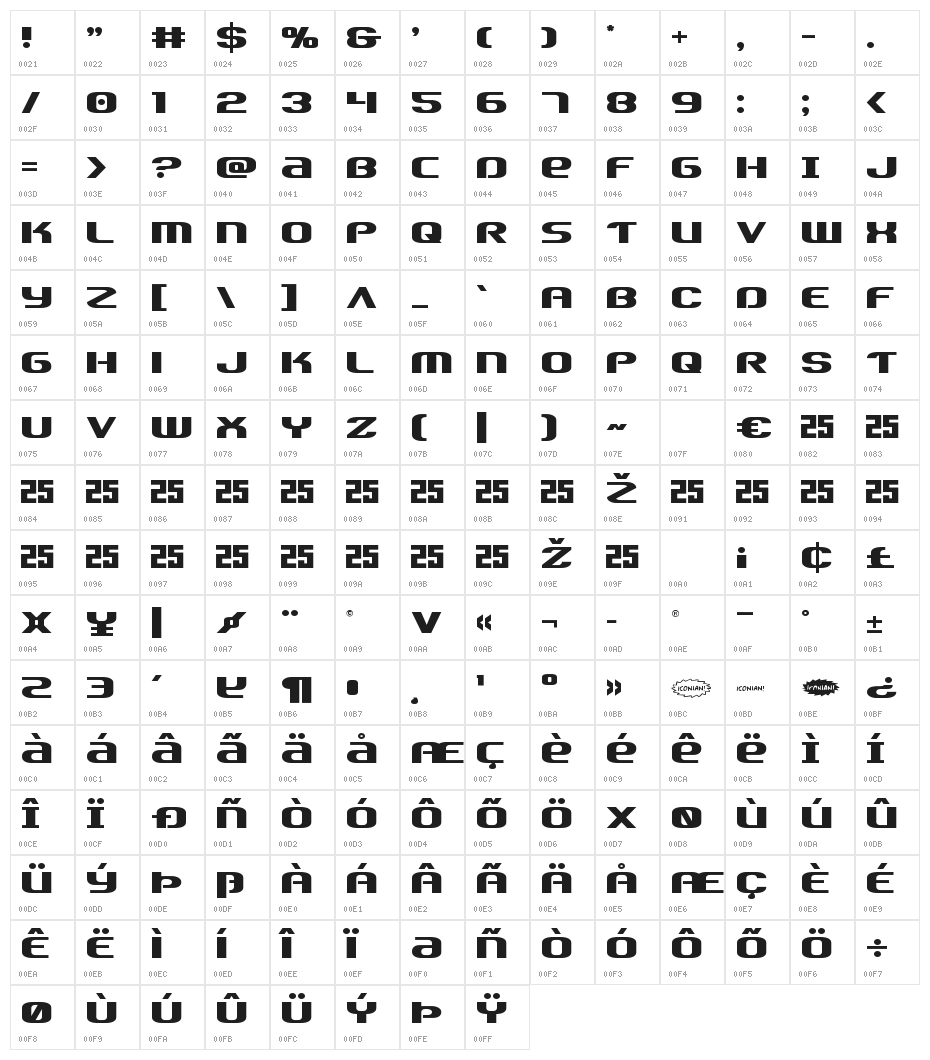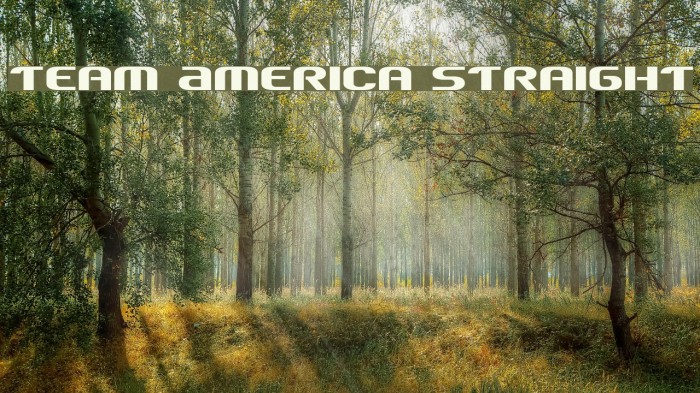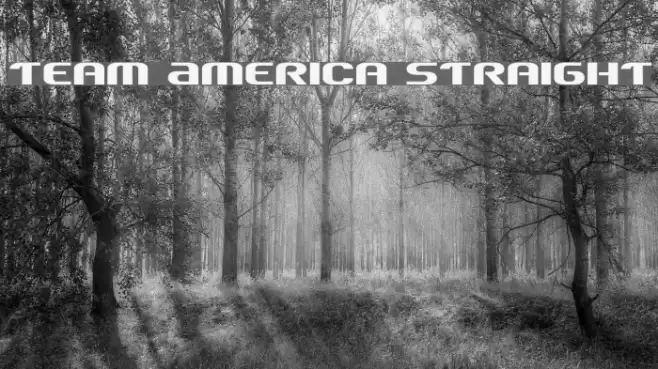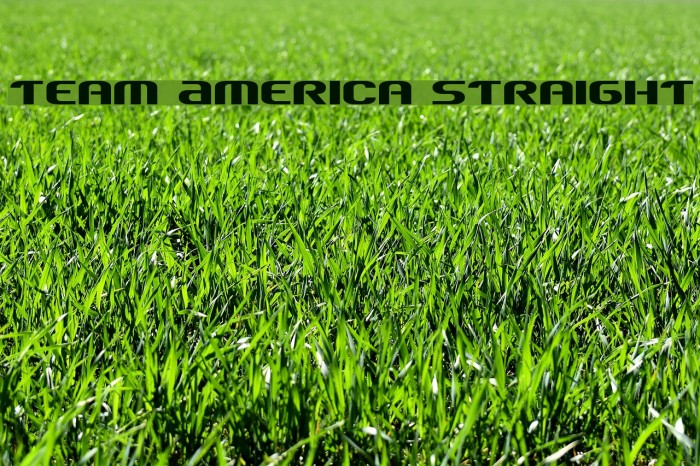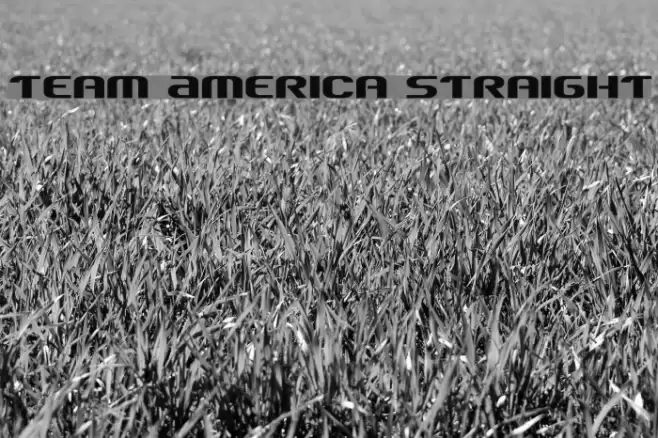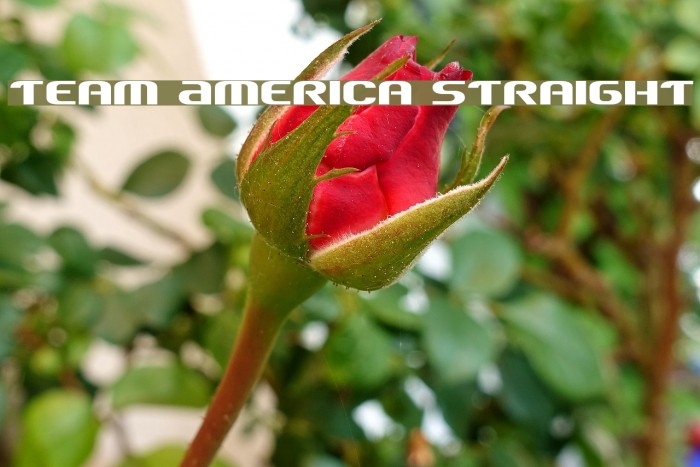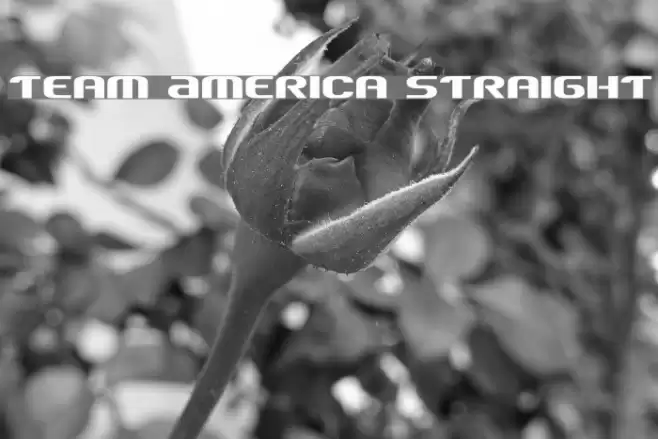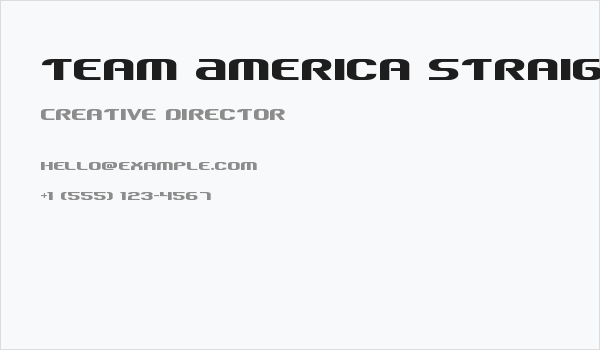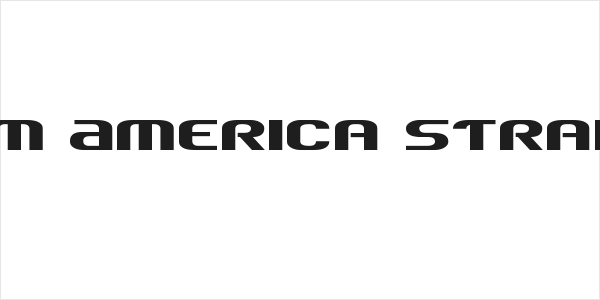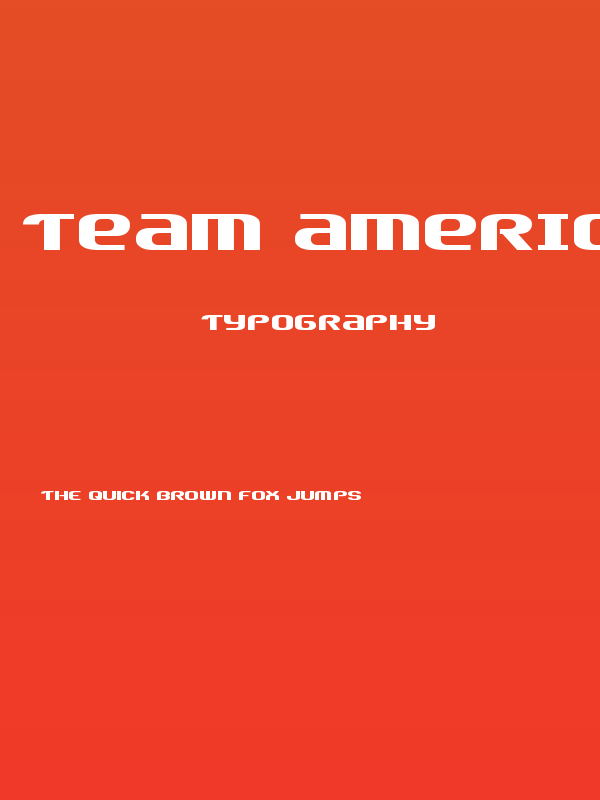
Team America Straight Font
Team America Straight Description
This font features a bold, futuristic design with a strong geometric influence. The characters are wide and have a uniform thickness, giving them a robust and impactful appearance. The uppercase letters are particularly striking, with a blocky style that emphasizes their boldness. The lowercase letters maintain the same width and thickness, ensuring consistency throughout the typeface. Numbers and special characters are designed to match the overall aesthetic, making them suitable for a variety of uses. The font's modern and dynamic style makes it ideal for projects that require a strong visual impact.
| Proposed Projects | Ideal for branding, headlines, posters, and any project requiring a strong visual presence. |